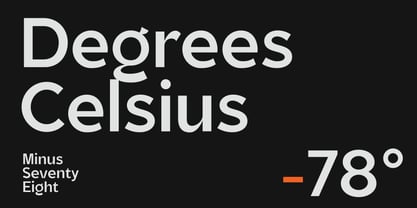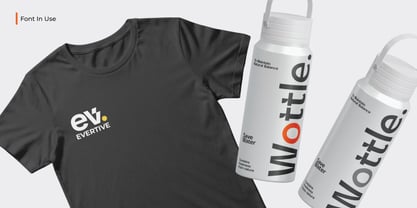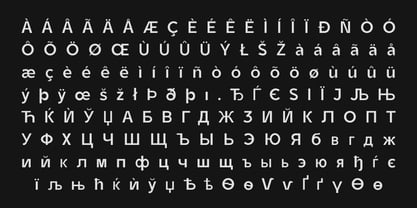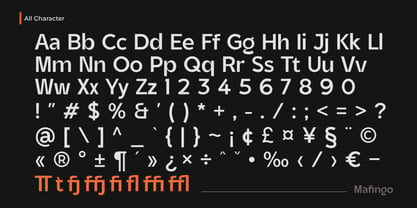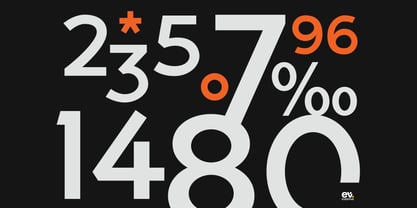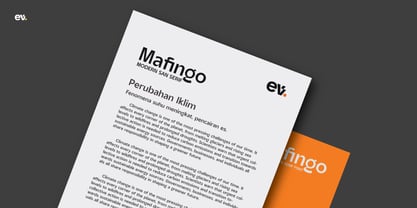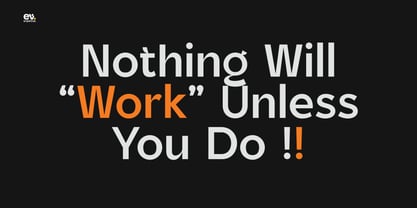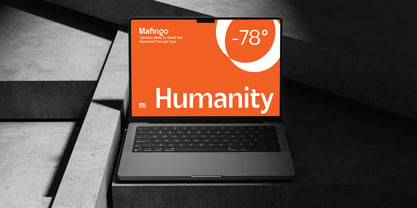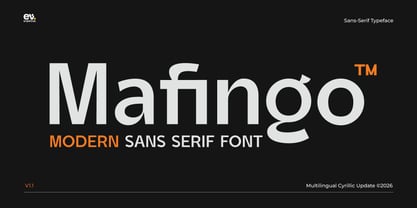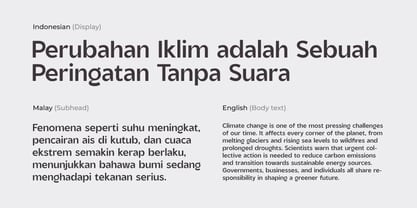
Mafingo
by Evertive
Mafingo is a modern sans serif typeface designed for clarity, balance, and contemporary expression. It features clean structures, smooth curves, and confident proportions that make it suitable for a wide range of applications. Mafingo works well in branding, editorial layouts, digital interfaces, and display use, offering a professional yet approachable tone. Its versatile design allows it to perform consistently across headlines and supporting text.